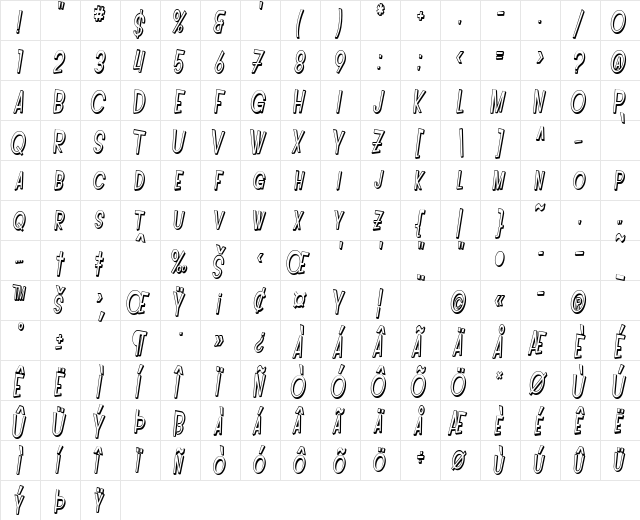
SF Intoxicated Blues Shaded Oblique
Design Context for SF Intoxicated Blues Shaded Typeface
SF Intoxicated Blues Shaded offers clean, dependable letterforms without strong stylistic allegiance, making it a practical choice for designers who need flexibility. The slanted form adds forward momentum and visual energy.
Pro Tip: Use SF Intoxicated Blues Shaded for emphasis, pull quotes, and subheadings where its slanted energy can add rhythm to the layout.